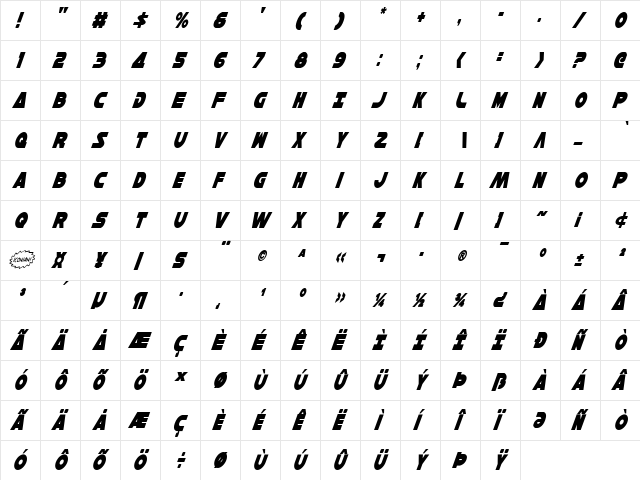
Han Solo Condensed Italic Font Preview
Design Context for Han Solo Condensed Italic Typeface
Han Solo Condensed Italic takes a measured approach to typography — its balanced proportions and neutral character make it a reliable workhorse for both digital and print work. The slanted form adds forward momentum and visual energy. Its narrow stance lets it pack a punch even in space-constrained designs.